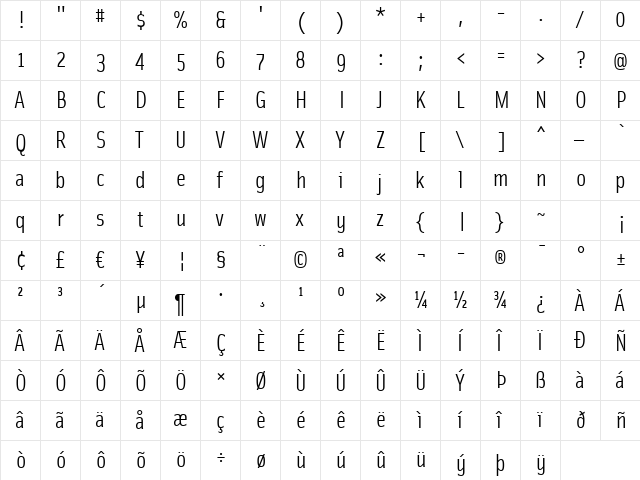
SolexRegular Regular
| Foundry | Emigre Inc. |
| Designer | Zuzana Licko |
Design Context for SolexRegular Typeface
SolexRegular offers clean, dependable letterforms without strong stylistic allegiance, making it a practical choice for designers who need flexibility.